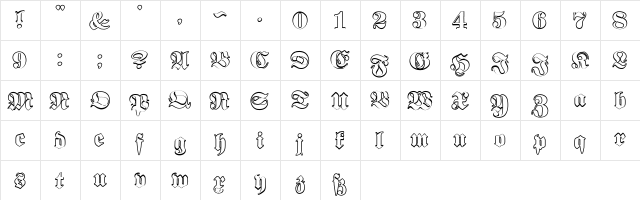
Proclamate Outline Heavy
| Designer | PJL |
Design Context for Proclamate Outline Typeface
Proclamate Outline brings ornamental detail and strong personality to headlines and identities, where visual impact matters more than quiet functionality.
Font Pairing: Pair with a clean neutral sans-serif for body copy to let Proclamate Outline's character lead without overwhelming the composition.
Pro Tip: Treat Proclamate Outline as the centrepiece of your typographic hierarchy. One strong heading set in a decorative face can carry an entire layout.